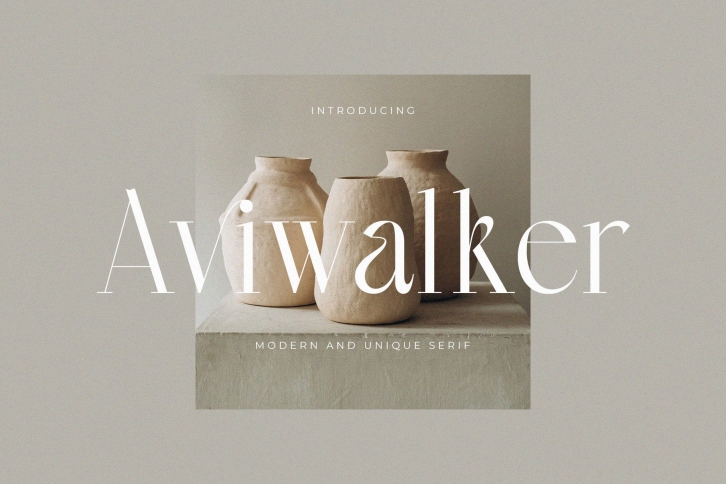
Aviwalker - Modern And Unique Serif Typeface
Introducing our new "Aviwalker" Bold serif typeface with elegant style this is perfect for branding, logos, invitation, magazines, product packaging and more.